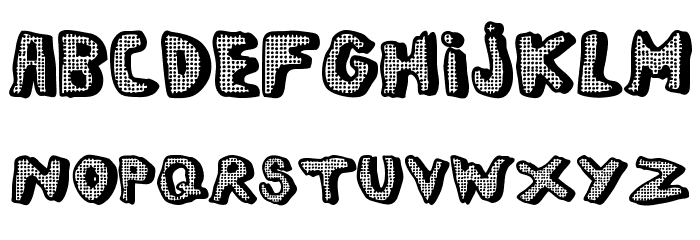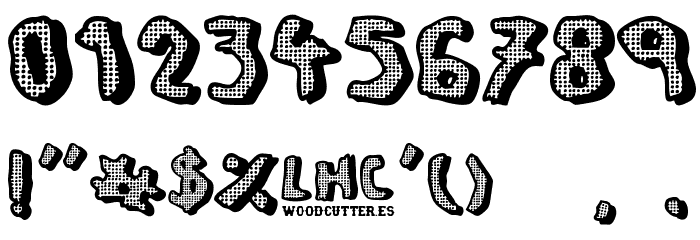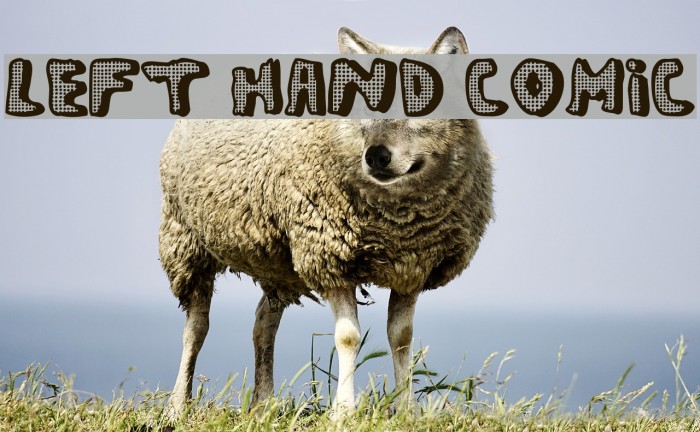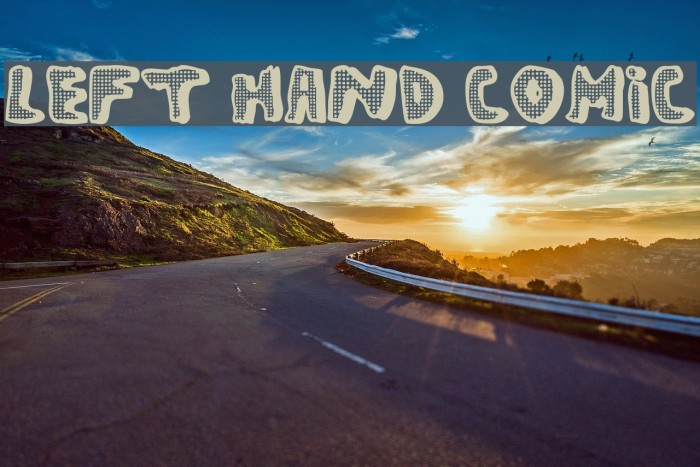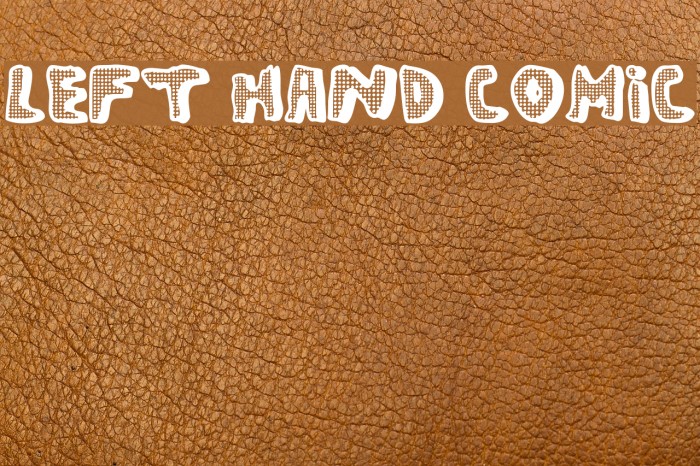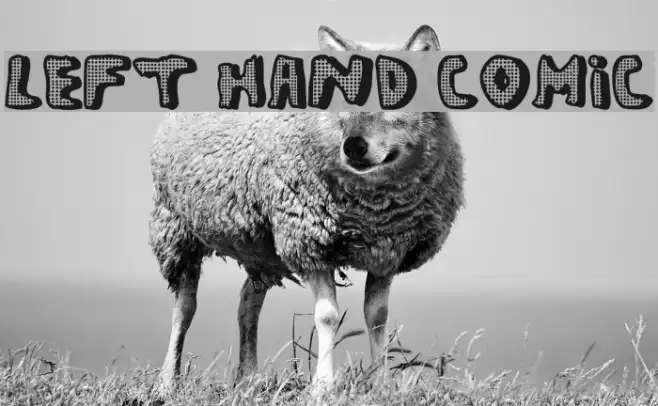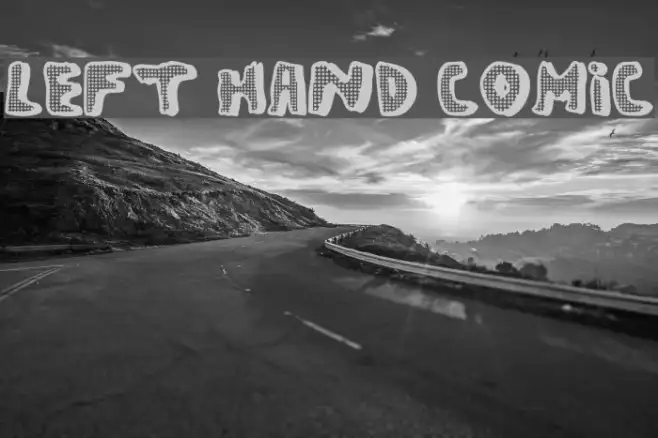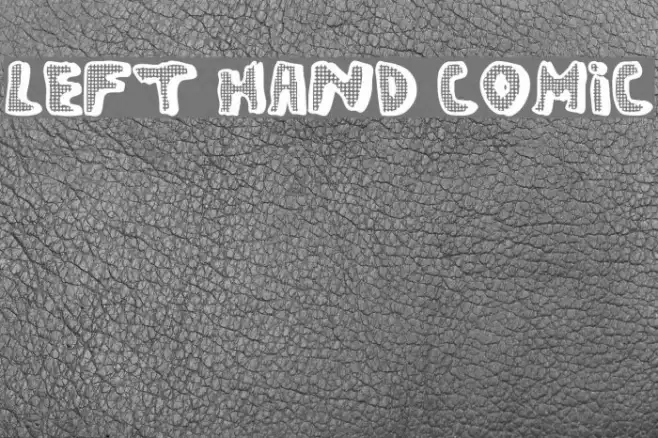
left hand comic Font
This playful and bold font features a comic-inspired style with a unique dotted texture inside each character. The letters are uppercase and lowercase, with a slightly irregular, hand-drawn appearance that adds to its whimsical charm. The numbers and special characters follow the same design, maintaining consistency across the set. The font's boldness and decorative elements make it stand out, perfect for projects that require a fun and engaging look.
A bold, comic-inspired font with a dotted texture and playful style.
- Proposed Projects: Ideal for comic books, children's books, playful branding, posters, and creative invitations.
- Overall Style: Playful, Comic